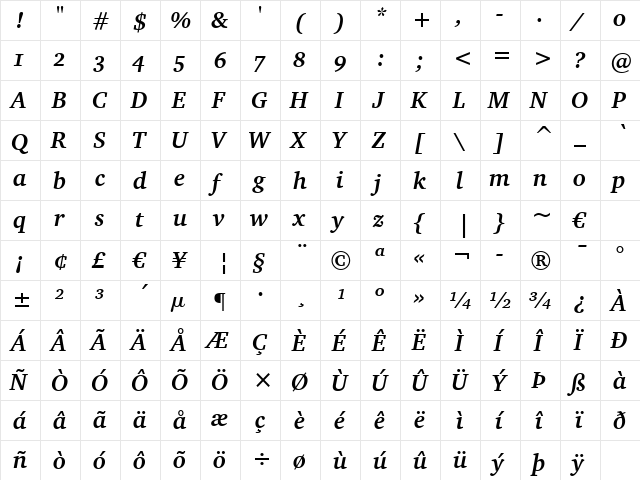
Charter Bd OSF BT Bold Italic Font Preview
Design Context for Charter Bd OSF BT Typeface
Charter Bd OSF BT takes a measured approach to typography — its balanced proportions and neutral character make it a reliable workhorse for both digital and print work. The dynamic lean of this cut emphasises speed and emphasis in any layout. The heavy weight commands attention and anchors typographic hierarchies.
Pro Tip: Use Charter Bd OSF BT for emphasis, pull quotes, and subheadings where its slanted energy can add rhythm to the layout.